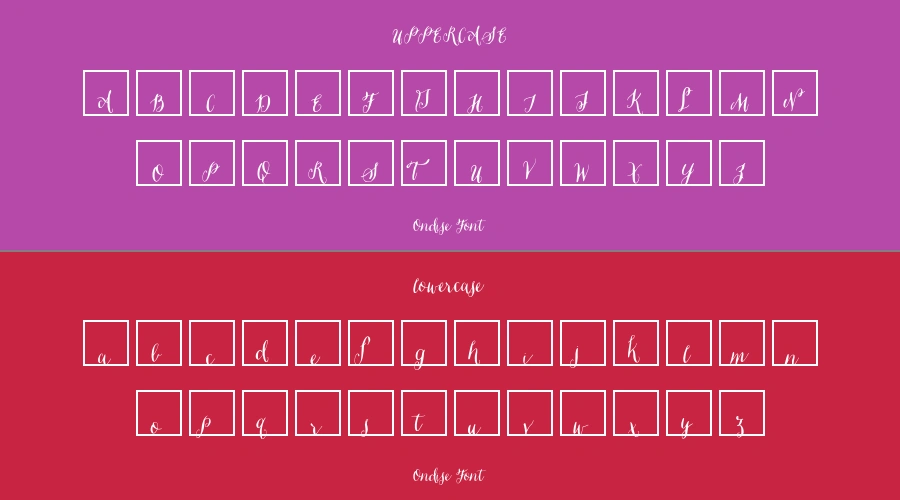
About Ondise Font
Ondise Font represents a sophisticated approach to type design, balancing harmonic curves with flexibility. Perfect for government publications, this font family showcases impressive legibility and cultural authenticity throughout its character set. Designers appreciate its versatility and reliability.
Designers will appreciate nuanced touches including concave curves and swash characters, adding sophistication to any project. These features become apparent in digital platforms, where overlay performance matters most. The careful treatment of joint detail and institutional trust ensures optimal performance.
Ondise Font |